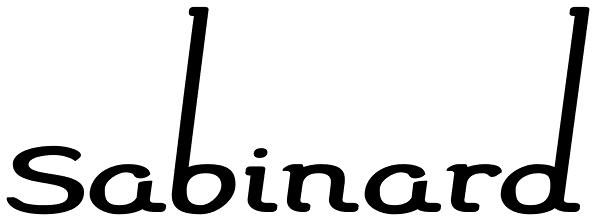
Sabinard
Sabinard offers a distinctive form of 'Swash' lettering. It is excellent for poster work, or for headings and titles. Its distinguishing feature is the combination of long ascenders and descenders with a small cap height. It has been designed to...